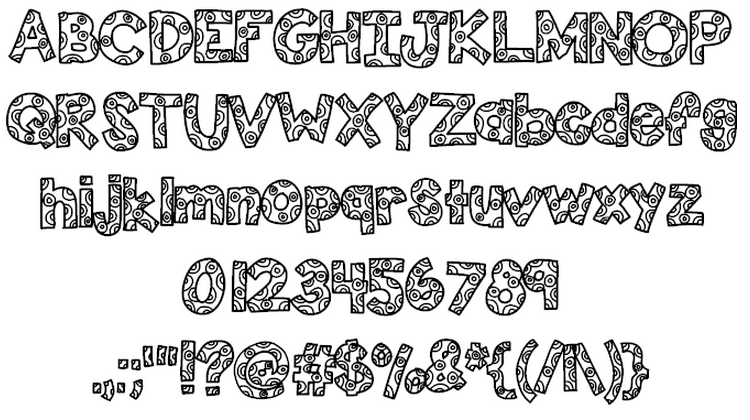
Khrys Bosland
Aka Khrys Kreations. Kindergarten teacher (b. 1988) in Florida, who made many hand-printed typefaces that appeal to children. Her typeface list as of 2012: KBBlockParty, KBChubby, KBDabble, KBDinoMite, KBDottyDot, KBFancyMe, KBKinderWrite, KBNeat, KBPeppy, KBRoundUp, KBSketch, KBSpacingOut, KBStripedPajamas, KBSubtle, KBSunshine. Many of these fonts were made with FontMaker and/or MyScriptFont. Typefaces from 2013: KB Up In Smoke, KB True Believer, KB Sneaky Walrus, KB Radio Wizard, KB Jumping Jellybeans, KB Fun House, KB Brght and Merry, KB Tiny Red Whale, KB The End Is Broken, KB Pancake Party, KB Googley Eyes, KB Funky Glasses, KB Brainy Skeleton, KBanAvoxlost, KB Zipa Dee Doo Dah, KB Seriously Into Her, KB Miso Soup, KB Hear Me Play, KB Earthquake, KB Camera Shy, KB And It Slips My Mind, KB Witching Hour, KB Pay The Lady, KB Reindeer Games, KB Gobble Day, KB Stick, KB Lucky Clover, KB Dunk Tank, KB Dark Hour, KB Planet Earth, KB Lace Nightgown, KB The Silent Night, KB Nosy Neighbor, KB Bubblegum, KB Freezer Burn, KB Hold the Phone, KB Jellybean, KB Jukebox, KB Starlight, KB Broken Apart, KB Push Over, KB Sandy Shorts, KB Love It Down, KB Pink Lipgloss, KB When Pigs Fly, KB Crazy Town, KB Her Highness, KB Lola Loves Me, KB Scared Straight, KB Write It On A Post It, KB Wiggle Worm, KB Saucey Lady, KB RiceaRoni, KB Pasta For Two, KB Ninja Power, KB Moonlight Falls, KB Maker Factory, KB Hot Tamale, KB Fancy Footwork, KB Cheetah Rita, KB Stylographic, KB Snowballin, KB Shot In The Dark, KB All Aboard, KB Troubled Soul, KB Delicate Soul, KB ABC Doodles, KB Grandeur, KB Turning Gears, KB Queeny Me, KB A Stitchin Time, KB Pop The Bubbly, KB Quipster, KB Cloudy Day, KB Noodle Monster, KB Out Of Towner, KB Ribbons and Bows, KB Skittled, KB You've Been Spotted, KB You're Just My Type, KB Bonjour Sweetheart, KB Curious Soul, KB Framework, KB Push, KB Washi, KB Camp Out, KB Chatter Box, KB Lime Light, KB Kinder Write Bold, KB Ruffled Feathers, KB So Thinteresting (+Bold), KB Sunshine Bold, KB Swirl N Twirl. Typefaces from 2014: KBCallMe, KBNeiledIt, KBNowWalkItOut, KBRacecars, KBReallyDnealie, KBTheFlowerFarm, KBTwoLovers, KBHabitsCanBeBroken, KBInterestingZebra, KBLikePinkStars, KBOneBigScrape, KBQuietStories, KBRadioWatcher, KBSecretPassage, KBSourdoughBread, KBSquishyBlanket, KBStickToThePlan, KBTropicalVACATION, KBWalkingontheTable, KBWanderAround, KGSummerSunshineBlackout, KGSummerSunshineShadow, KGSummerSunshine. Typefaces from 2016: KB Balloon Animal, KB Bus Stop, KB Caterpillar, KB Darling MG, KB Expansive, KB Mommy Dearest, KB Mosaic, KB Play Date, KB Swifty, KB The Little Fella, KB Warm Her Up. |